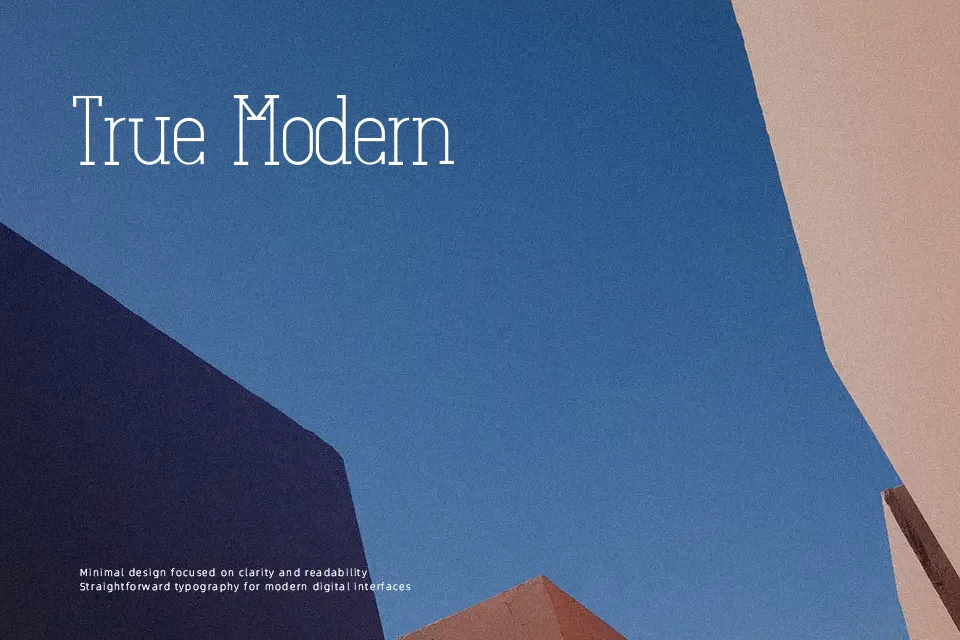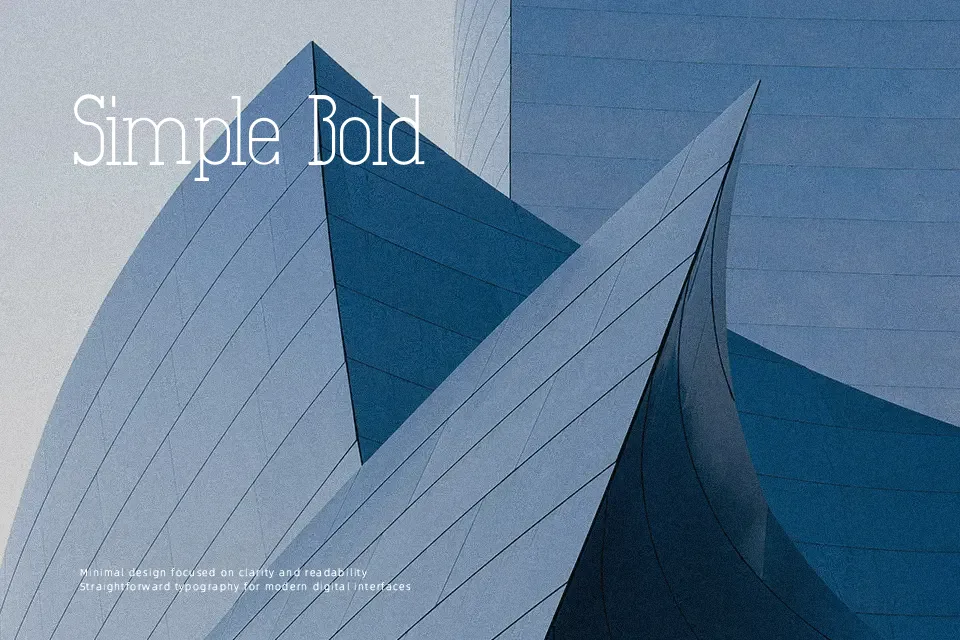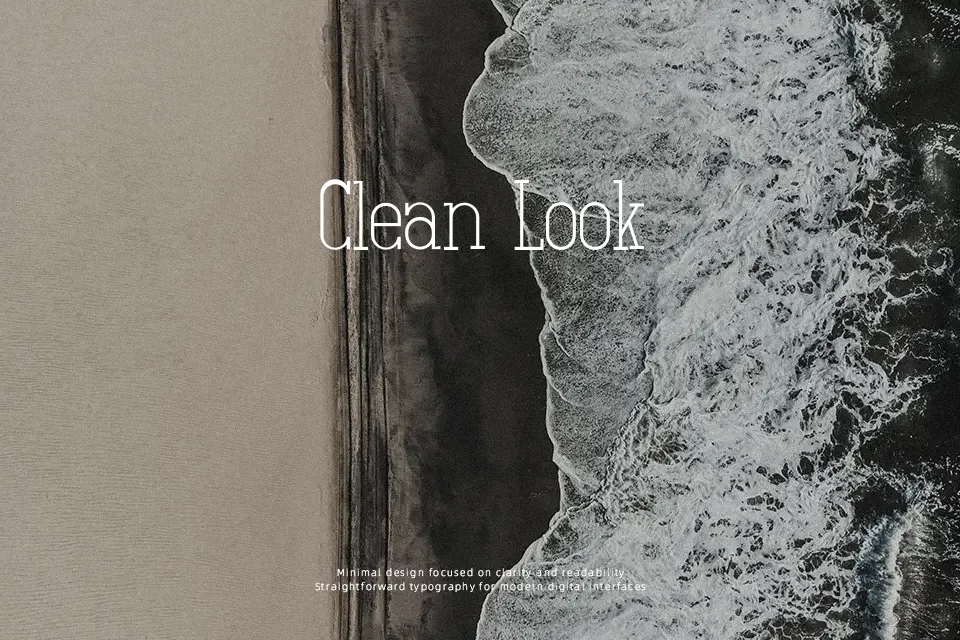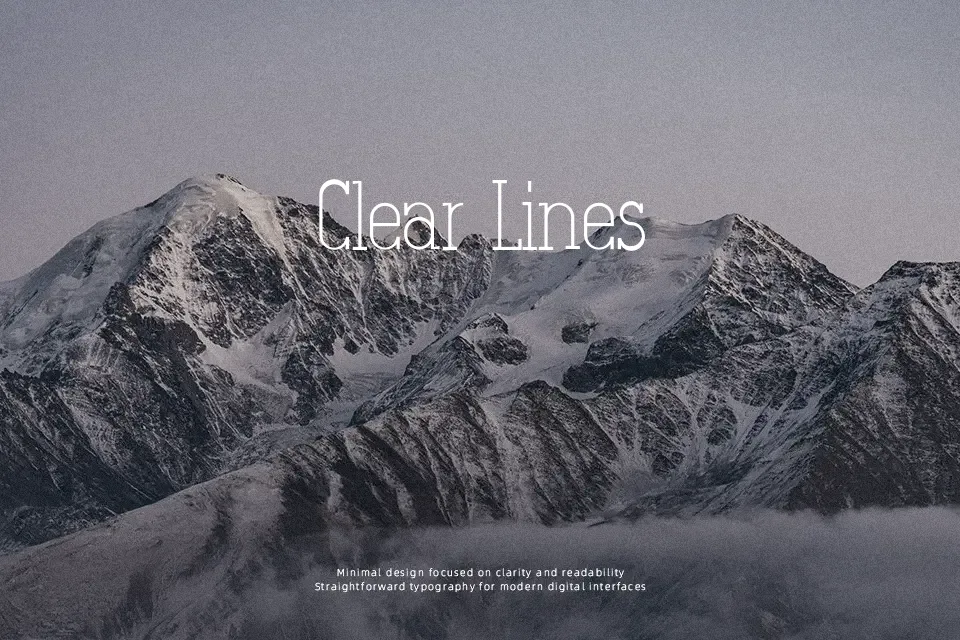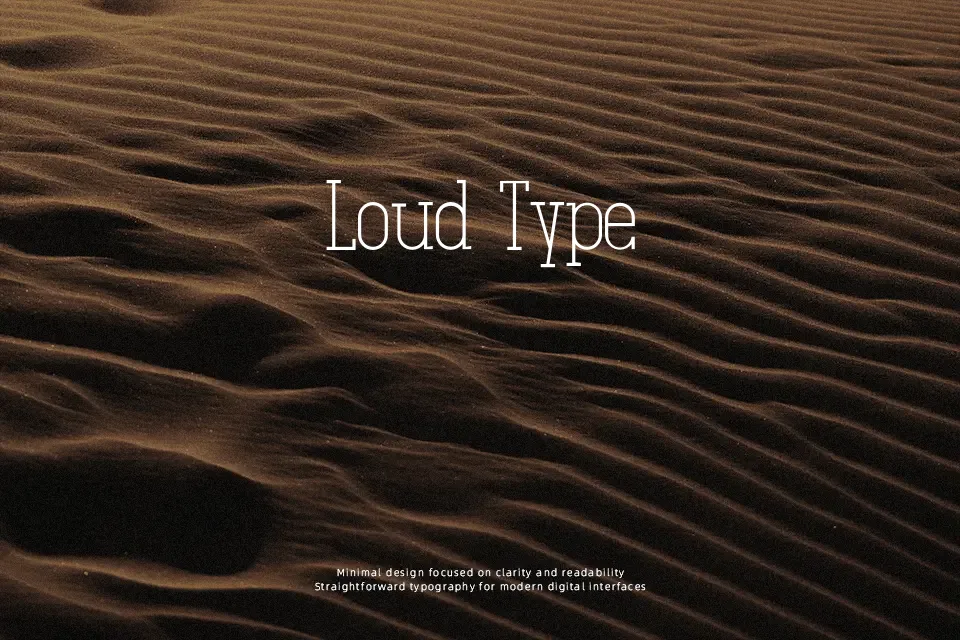
Salamandre Font
Salamandre Font exhibits an elongated vertical profile anchored by prominent slab serifs and narrow character proportions. The typeface features firm, upright vertical strokes balanced by delicate horizontal crossbars, producing noticeable stroke contrast throughout uppercase and lowercase glyphs. Moderate spacing prevents the tall letterforms from crowding together, though the condensed architecture reduces comfort when reading extended paragraphs of text. At larger scale, the design delivers crisp definition and authentic period charm, making it exceptionally well suited for vintage product labels, retro signage, and theatrical title cards. The robust bracketed terminals ensure individual characters remain sharply defined across high-resolution print applications.
Best For: vintage product packaging, retro poster headlines, antique book covers
Not Ideal For: continuous body text, mobile interface menus, dense spreadsheet tables
Perfect for advertising, headline, and logo, with a classic and condensed style.